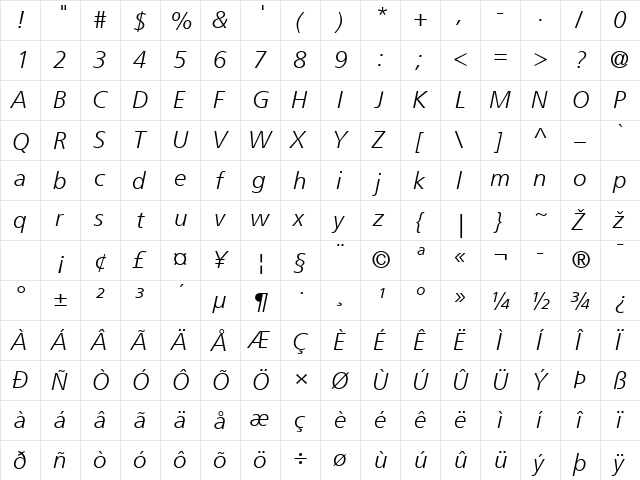
Frutiger LT 45 Light Italic
| Designer | Adrian Frutiger |
Design Context for Frutiger LT 45 Light Typeface
Frutiger LT 45 Light offers clean, dependable letterforms without strong stylistic allegiance, making it a practical choice for designers who need flexibility. The slanted form adds forward momentum and visual energy. Its slender proportions lend an understated elegance to any composition.
Pro Tip: Use Frutiger LT 45 Light for emphasis, pull quotes, and subheadings where its slanted energy can add rhythm to the layout.